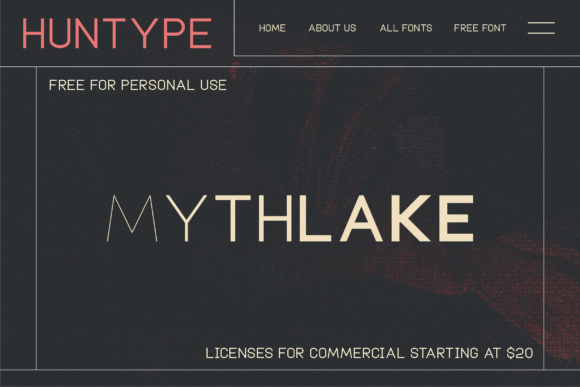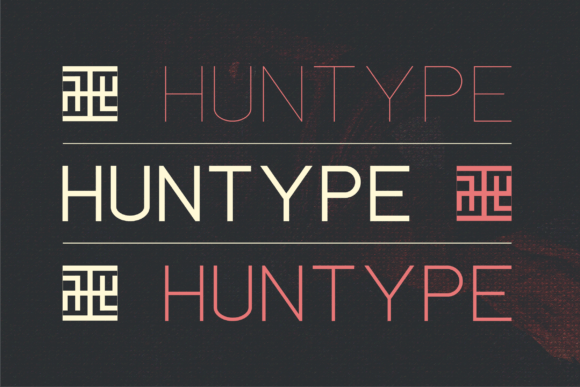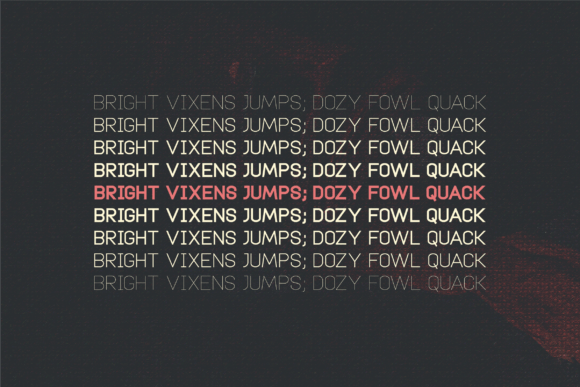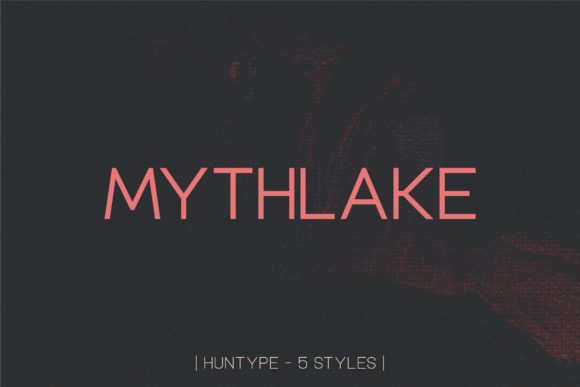
Introduction to Mythlake Font
Introducing Mythlake Sans Serif Family, a meticulously crafted font family that epitomizes elegance, modernity, and versatility.
With its five distinct weightsβ€”THIN, LIGHT, REGULAR, BOLD, and BLACK Mythlake Family offers a wide range of creative possibilities, making it the perfect choice for designers and content creators.
Why Choose Mythlake Font?
Mythlake Font offers exceptional quality and versatility, making it a valuable addition to your design toolkit. Whether you’re creating for personal projects or commercial use, Mythlake Font delivers professional results.